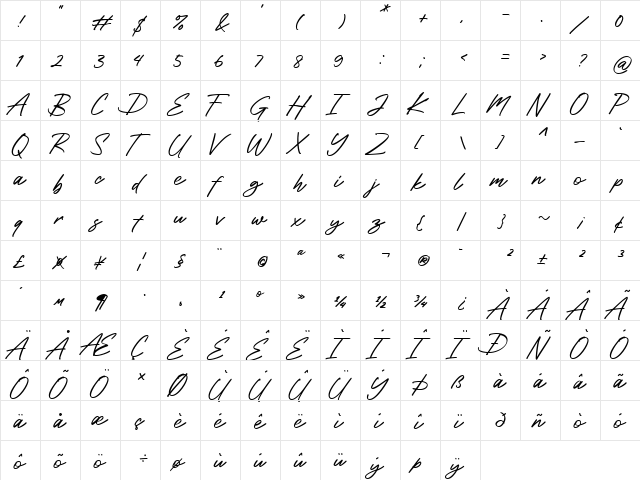
Roustel Regular
| Designer | Ali Hamidi |
Design Context for Roustel Typeface
Roustel is a composed and adaptable typeface that performs quietly and consistently across a wide range of design contexts.